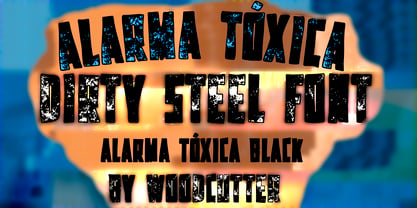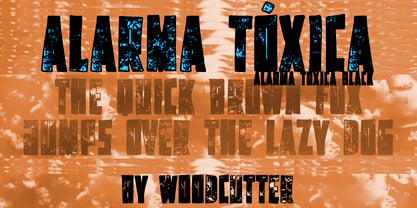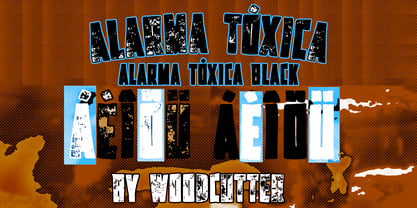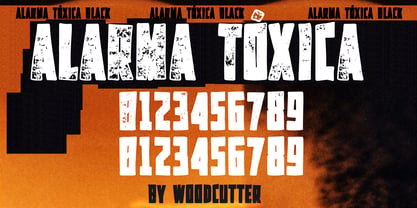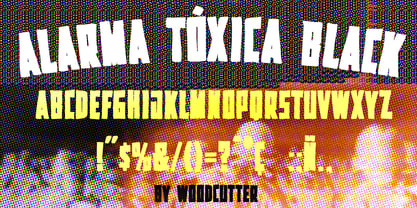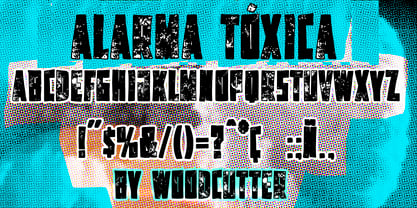
Alarma Tóxica
by Woodcutter
The Alarma Tóxica Font Family was designed by Jordi Manero and published by Woodcutter. Alarma Tóxica contains 2 styles and family package options. More about this family
"Alarma Tóxica" is a typeface family that radiates raw strength, industrial character, and an aesthetic inspired by the harshness of Soviet-era visual culture. Designed in both uppercase and lowercase with full accent support, this font features a bold, hand-drawn stroke—irregular, tense, and forceful, as if each character had been forged under extreme mechanical pressure.
The main version, "Alarma Tóxica", stands out for its worn, distressed finish, evoking eroded steel surfaces, aging machinery, and metal structures shaped by time and friction. The letters display imperfections, broken textures, and rough edges that create a tactile, realistic feel, reinforcing its rugged and resilient identity. Each character seems to endure extreme conditions, conveying a narrative of stress, decay, and endurance.
In contrast, "Alarma Tóxica Black" offers a more solid and direct interpretation. In this version, the characters are fully black, removing the distressed effect to achieve a cleaner, more compact, and powerful visual presence. While the structure remains the same, its impact becomes sharper and more immediate.
"Alarma Tóxica" is ideal for projects seeking an industrial, military, or retro-futuristic aesthetic—branding, posters, music, editorial design, or any concept that demands toughness, resilience, and a relentless visual energy forged from steel and history.
Designers: Jordi Manero
Foundry: Woodcutter